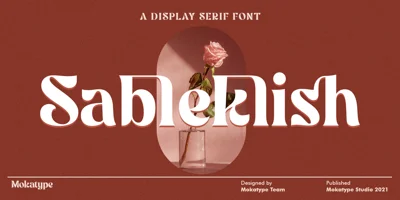
Sableklish Font
Sableklish Font is ideal for artistic exhibition posters, creative agency branding, experimental typography projects, avant-garde magazine layouts, contemporary art installations, design studio identities, modern gallery signage, innovative packaging design, cutting-edge editorial work, and progressive digital art presentations. This distinctive typeface excels in applications where creative expression and artistic innovation need to be communicated with bold originality and unconventional design thinking that challenges traditional typography boundaries.
What makes Sableklish Font exciting is its remarkable ability to push the boundaries of conventional letterform design through its unique character construction that blends artistic experimentation with functional readability. The font embodies the spirit of creative rebellion and artistic exploration with its unconventional proportions and innovative character details that suggest fresh thinking and boundary-pushing design philosophy. Its carefully balanced eccentricity and artistic personality create an atmosphere of creative freedom that resonates with designers, artists, and creative professionals seeking to make bold statements.
The Sableklish Font family typically includes Regular and Bold weights, each maintaining the signature artistic characteristics and experimental design elements. Some versions offer additional stylistic alternates, decorative variants, and special character sets that enhance the creative possibilities for artistic applications. The family may also include outline styles and display cuts that amplify the experimental aesthetic for maximum visual impact in contemporary art and design projects.
Whether you're developing avant-garde brand identities, experimental design projects, or contemporary art presentations, Sableklish Font provides the perfect creative foundation your innovative projects demand. Its artistic character and experimental styling make it an essential tool for designers and artists working in contemporary art, fashion, and creative industries where originality and artistic expression are fundamental to establishing unique visual identity and creative credibility in competitive creative markets.